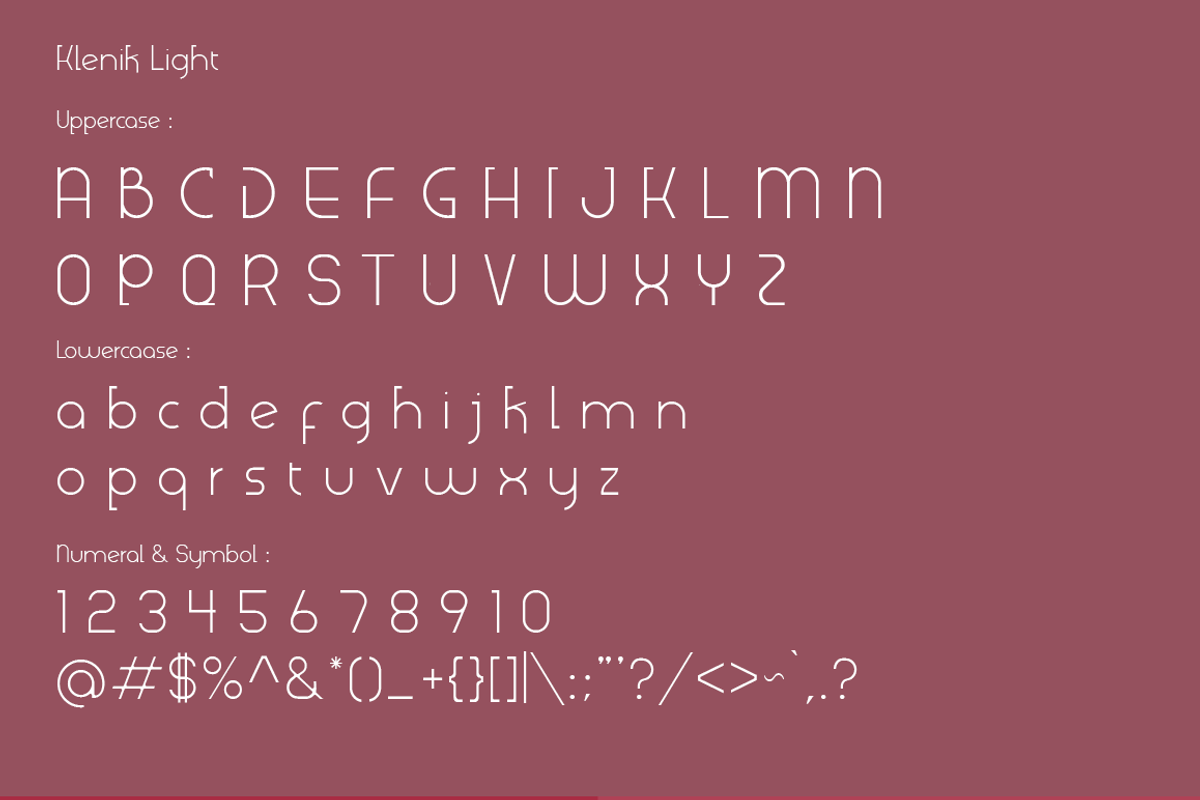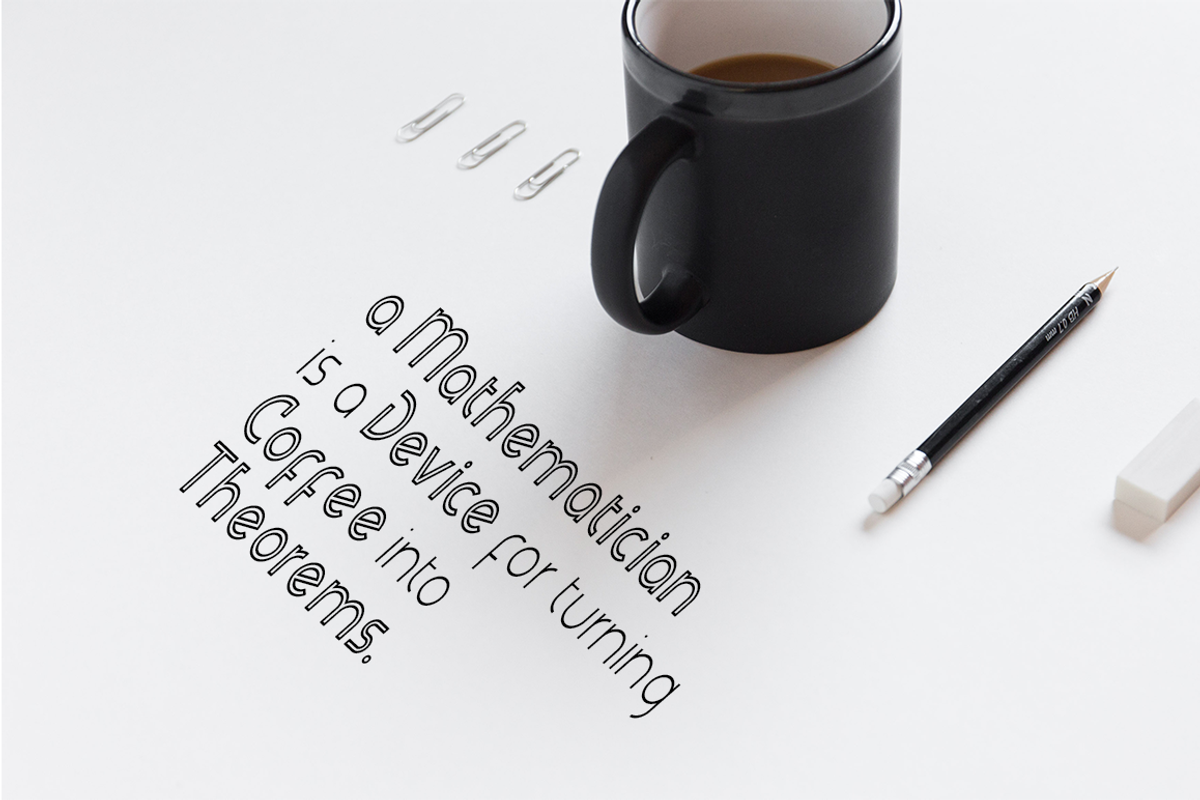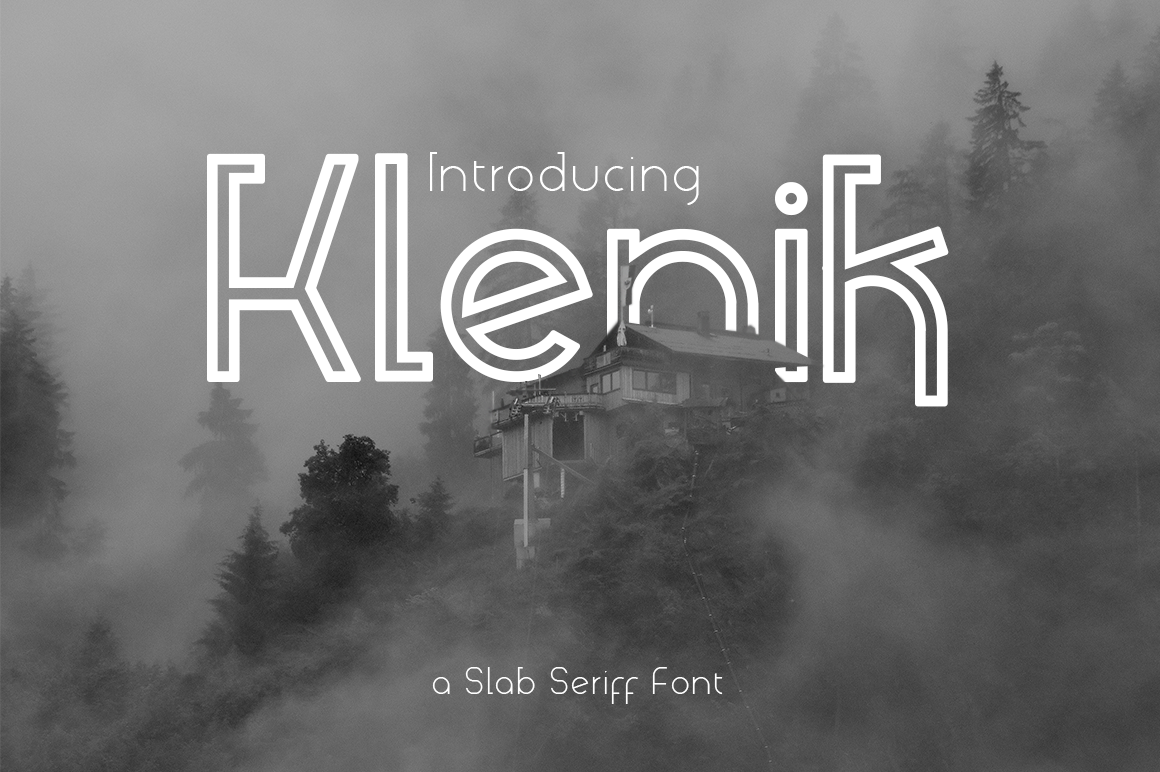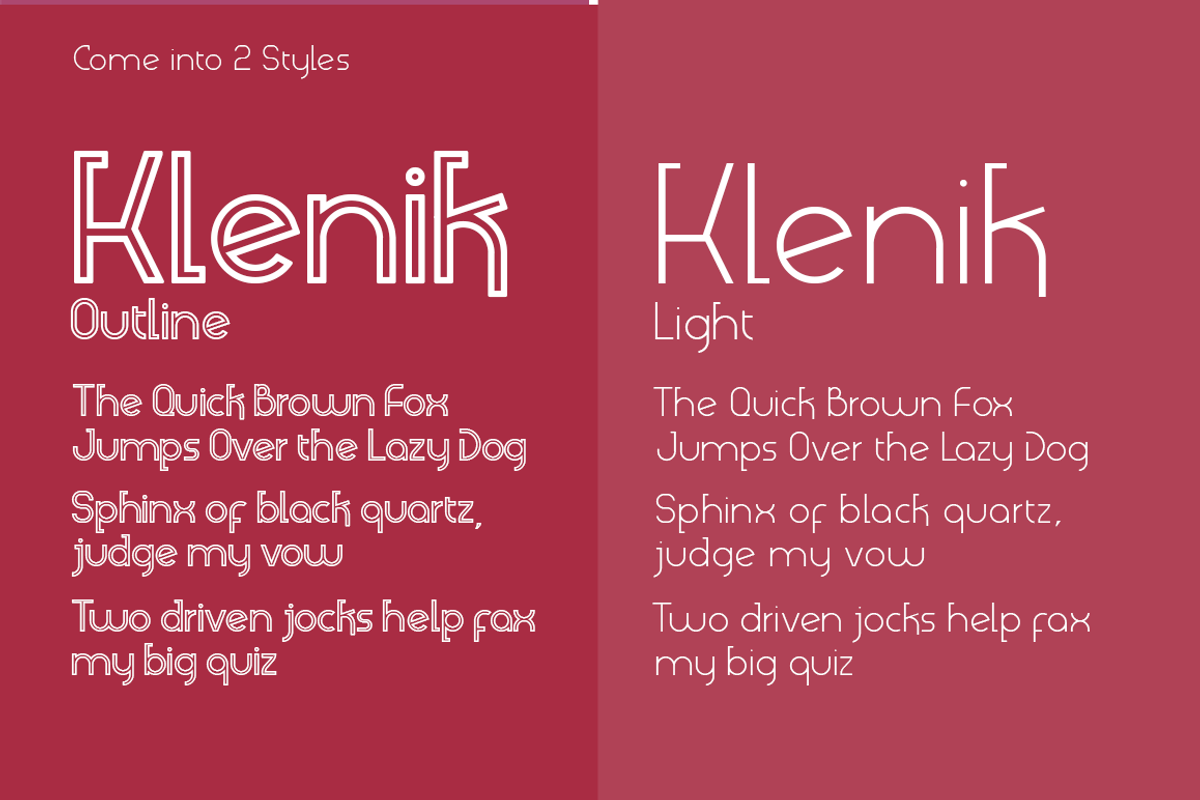
Klenik | a Slab Seriff Font
Klenik - a Slab Serif Font is an Elegant light and outlin font files. it is based on the combining a variety of styles. Suitable for Logo, greeting cards, quotes, posters, branding, name card, stationary, design title, blog header, art quote, typography